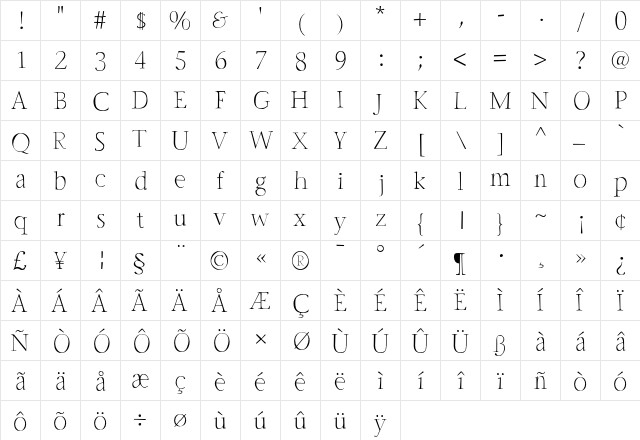
Godlike Regular
Design Context for Godlike Typeface
Godlike offers clean, dependable letterforms without strong stylistic allegiance, making it a practical choice for designers who need flexibility.